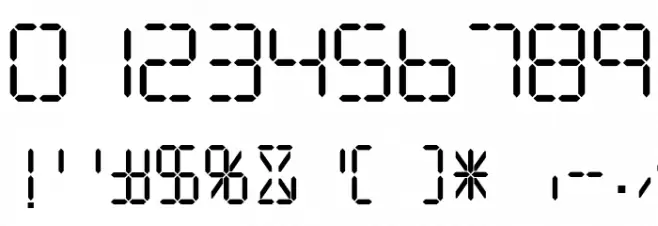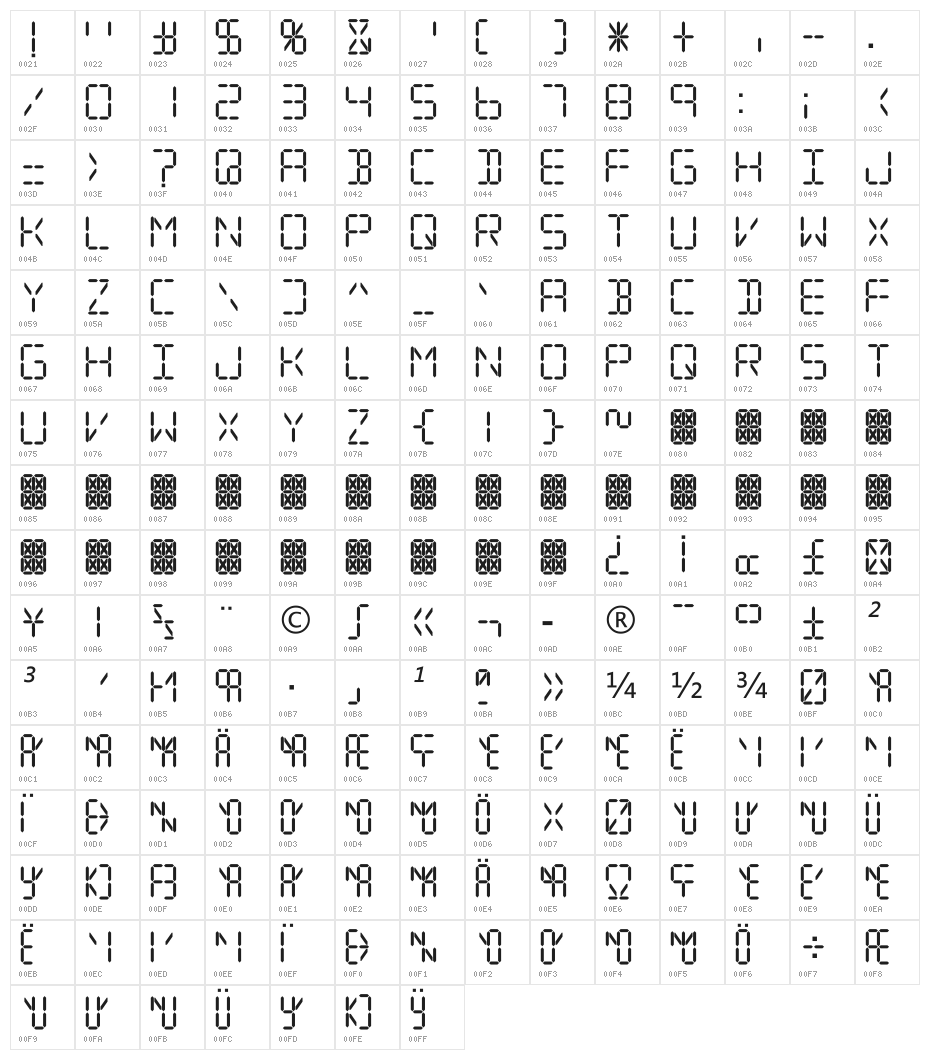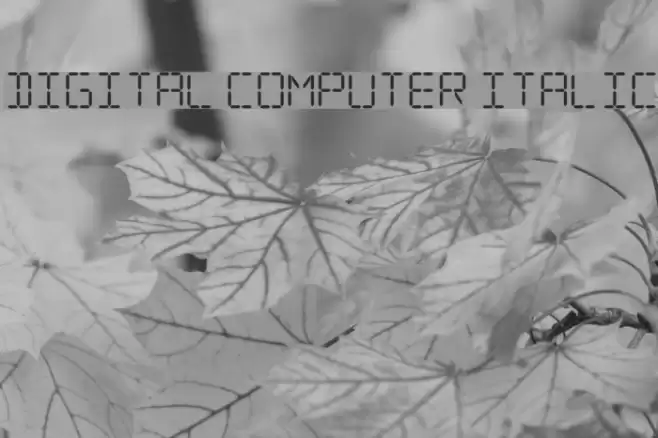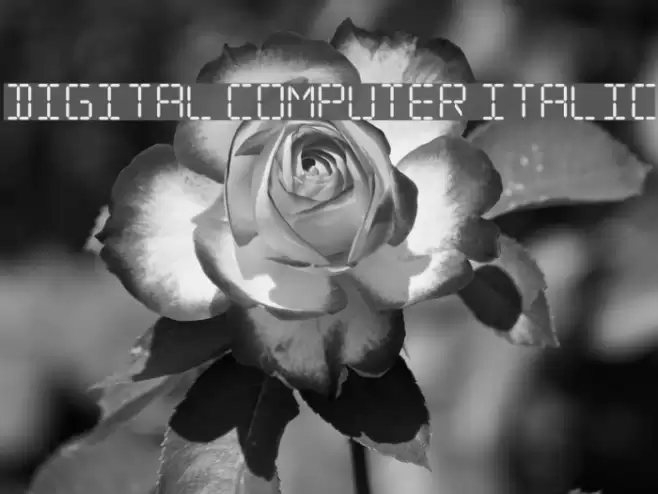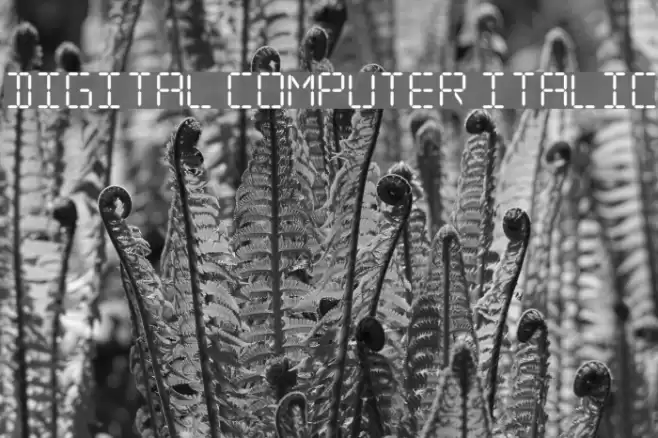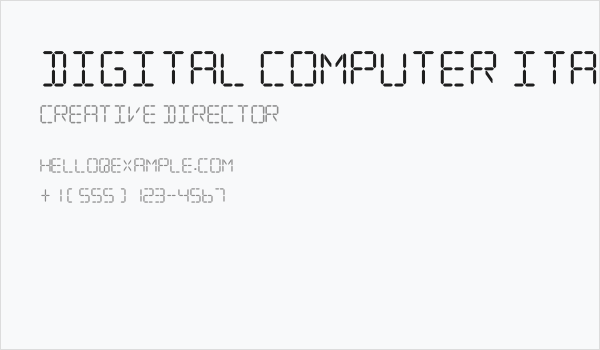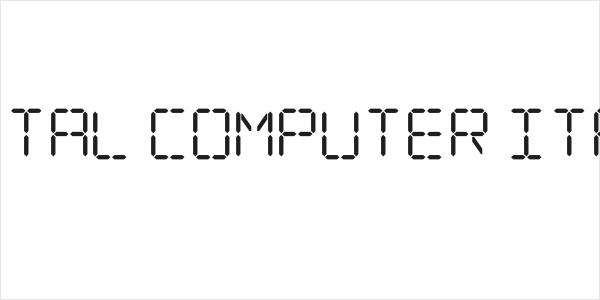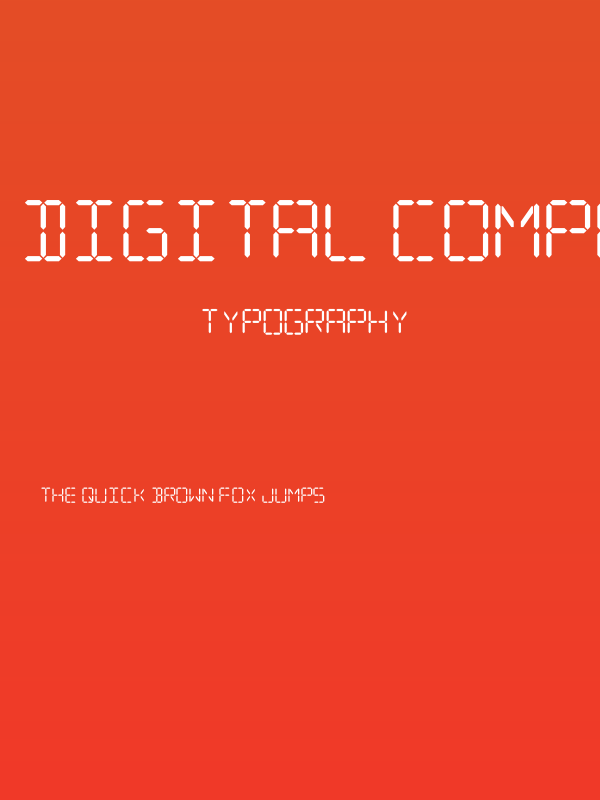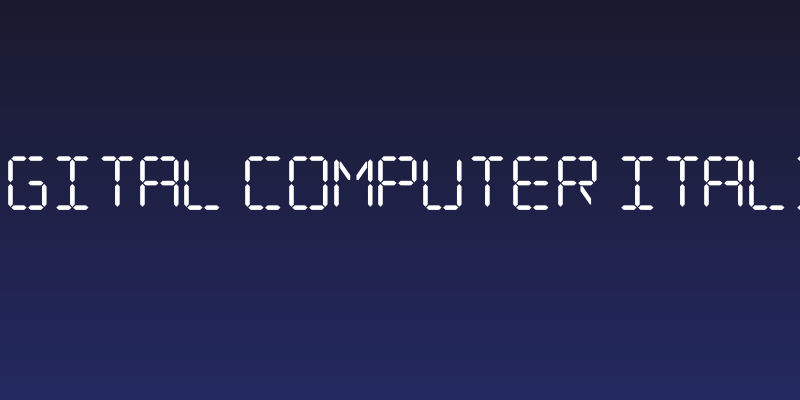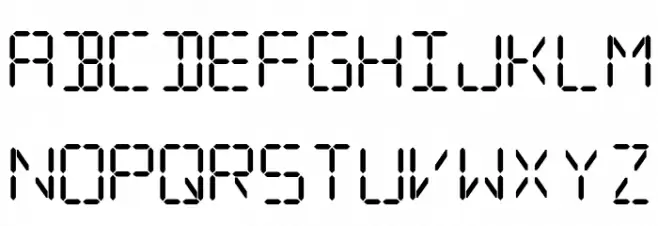
Digital Computer Italic Font
Digital Computer Italic Description
This font features a digital, segmented style reminiscent of old computer displays and digital clocks. Each character is constructed from a series of connected segments, giving it a distinctly technological and retro appearance. The font is uniform in width, with each letter and number maintaining a consistent size and shape. The angular, geometric design is both functional and stylish, making it ideal for conveying a sense of modernity and precision. The characters are well-spaced, ensuring readability even at smaller sizes. This font is perfect for projects that require a digital or futuristic aesthetic.
| Use Case | Headlines, Logos, Digital displays |
| Proposed Projects | Ideal for digital-themed designs, tech-related branding, retro-style posters, and user interfaces. |